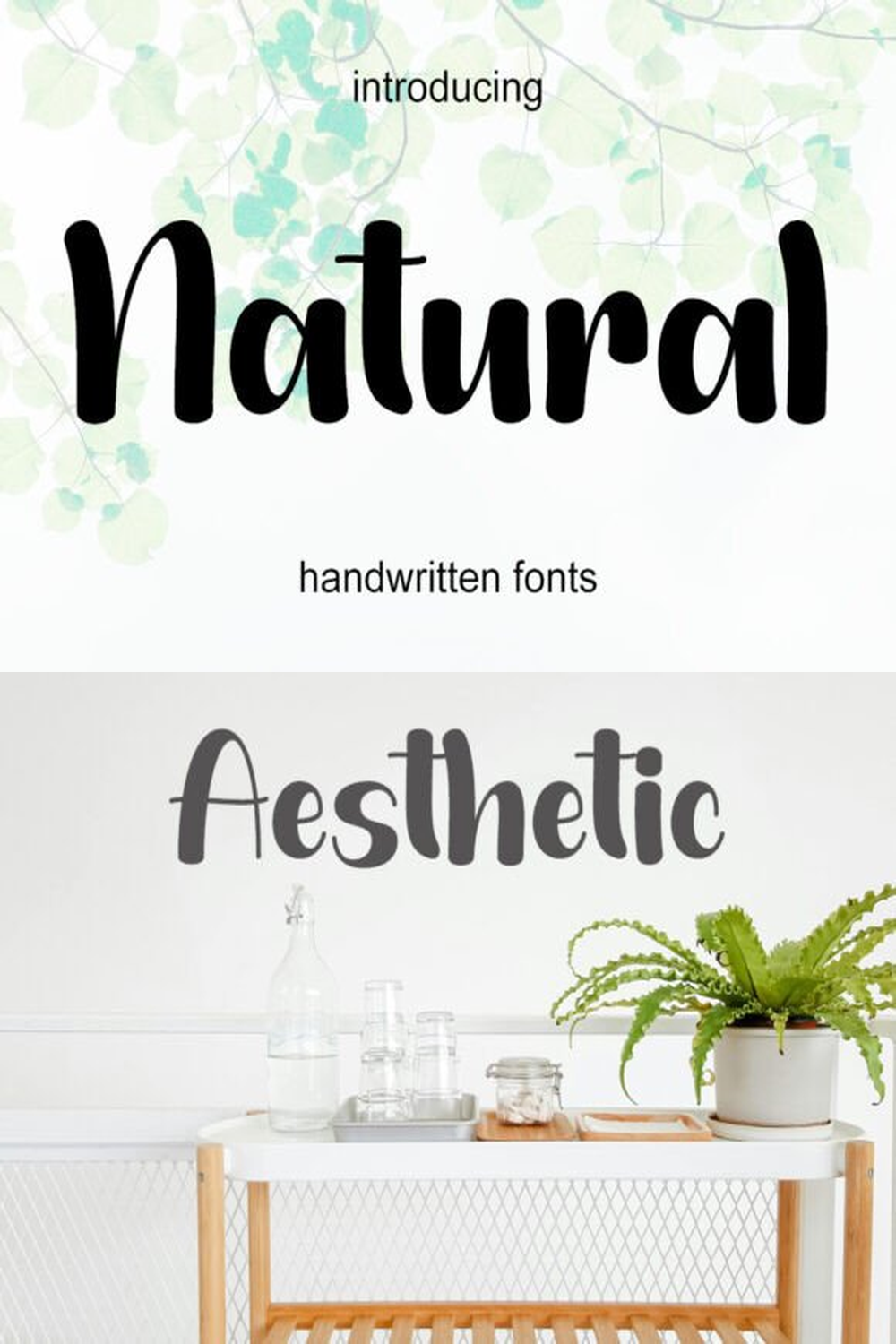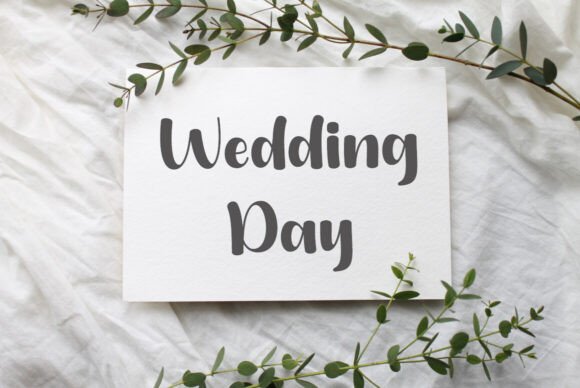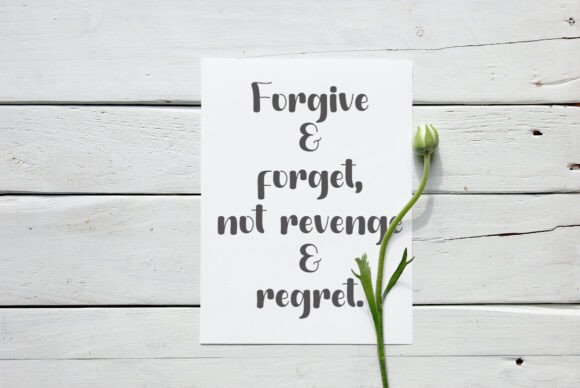
Natural Font: A Cute Handwritten Font for Playful Designs!
About the Natural Font
The wait is over! The incredible Natural Font is now available for your design toolkit. Get acquainted with “Natural,” an expressive brush-written font imbued with a spirited and bubbly flair. Personifying the essence of sheer glee and merriment, this playful font elevates your joyful birthday messages, lively party invitations, and any dynamic event marking a commemoration. Each stroke carries a unique casual elegance, infusing an intimate warmth into your artistic pieces. Brimming with an enchanting allure, Natural possesses the ability to magnificently revolutionize your designs with a creative glow. Rooted in jubilance, permit your font to converse in the dialect of celebration with Natural.